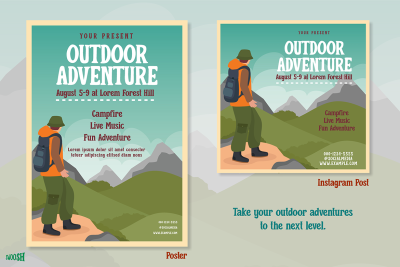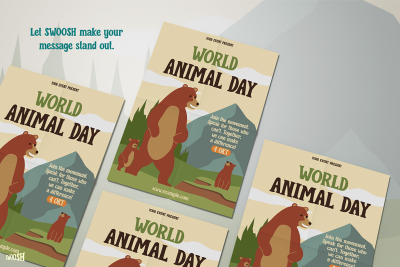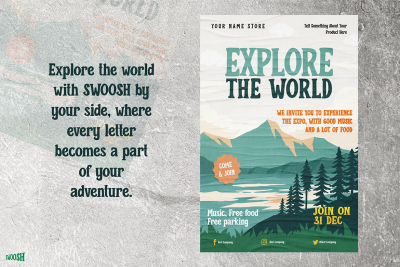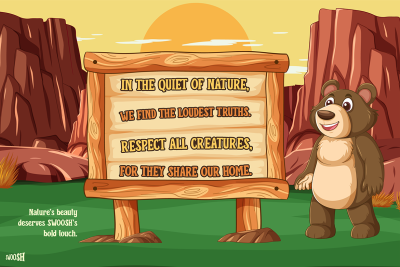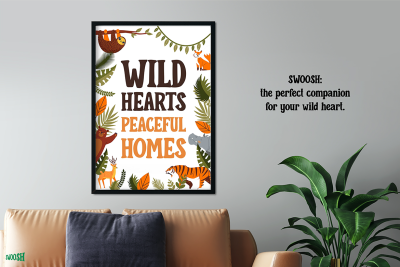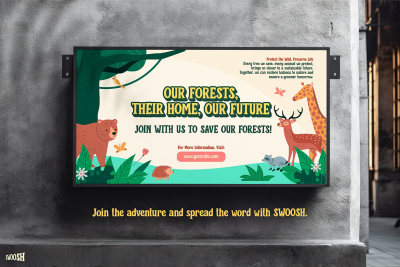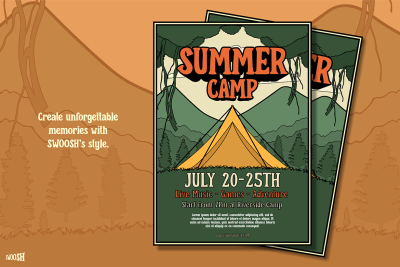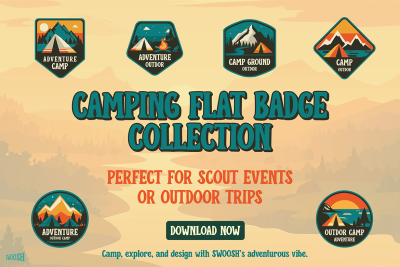
Kids Font Swoosh is a playful and cheerful typeface that captures the essence of childhood fun. Its bold, rounded letters and whimsical style make it ideal for projects targeting children. The font features smooth curves and a friendly appearance, giving it a warm, approachable feel. This combination ensures the font stands out in designs, while adding a sense of joy and energy.
Additionally, Kids Font Swoosh is highly versatile. It works well across various creative projects, including colorful posters, playful packaging, and engaging storybooks. The simple design ensures legibility, while the fun character shapes bring personality to any layout. Whether used in digital or print media, this font adds a lively touch that appeals to younger audiences.
The simplicity of the design also makes it easy to integrate with other elements. Kids Font Swoosh offers great readability, even in larger blocks of text. Its whimsical style, however, doesnโt take away from its clarity, making it an excellent choice for content that needs to be both fun and easily understood.
Kids Font Swoosh Who is this font suitable for?
Kids Font Swoosh is perfect for educators, childrenโs brands, and designers focused on family-oriented content. For schools, it is great for educational materials such as worksheets, classroom posters, and fun learning tools. In addition, authors and publishers of childrenโs books can use it to create engaging text that resonates with young readers.
Toy manufacturers and companies in the childrenโs entertainment industry will benefit from this font, especially for product packaging, advertisements, and promotional materials. It has a lively style that captures attention and makes products feel more inviting. Event organizers can also use it for childrenโs party invitations, banners, and decorations, creating an atmosphere of fun and excitement.
For digital creators, Kids Font Swoosh is a strong choice for apps, websites, or YouTube channels that cater to kids. Whether for user interfaces, app icons, or video thumbnails, this font enhances engagement and adds a playful vibe. Social media influencers, particularly those focused on kids’ activities, parenting, or family life, can also benefit from using it to make their posts more relatable and eye-catching.
Lastly, small businesses that specialize in handmade products for children, such as toys, clothing, or stationery, will find this font useful for branding. It works perfectly for logos, product tags, and promotional graphics, giving the brand a friendly and approachable appearance. Kids Font Swoosh is a fantastic choice for creating joyful, imaginative designs that capture the spirit of childhood.